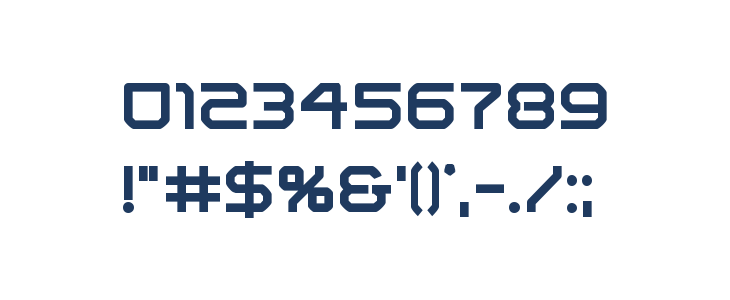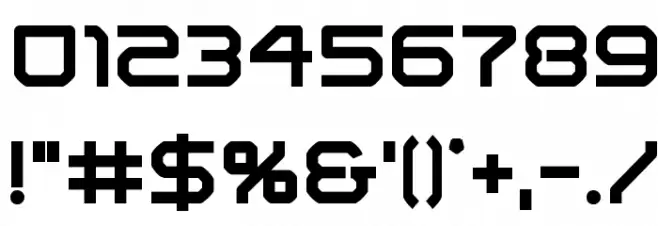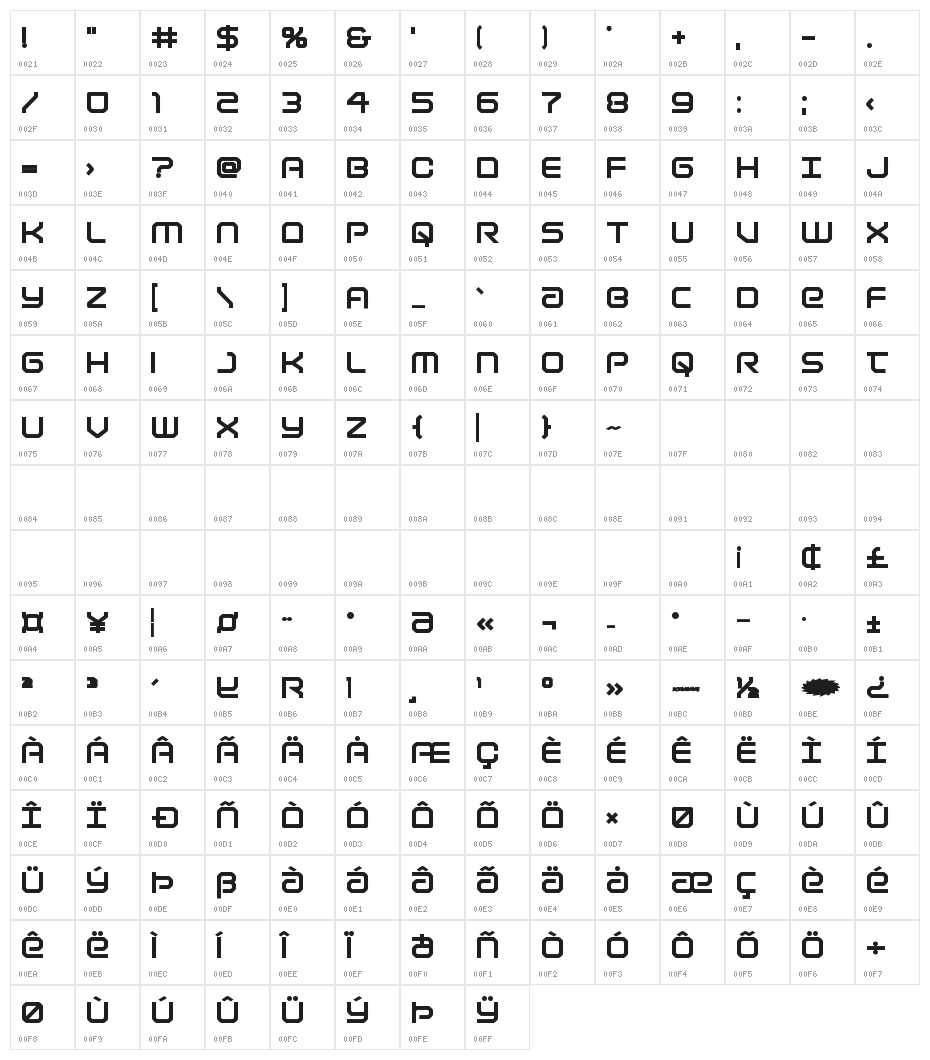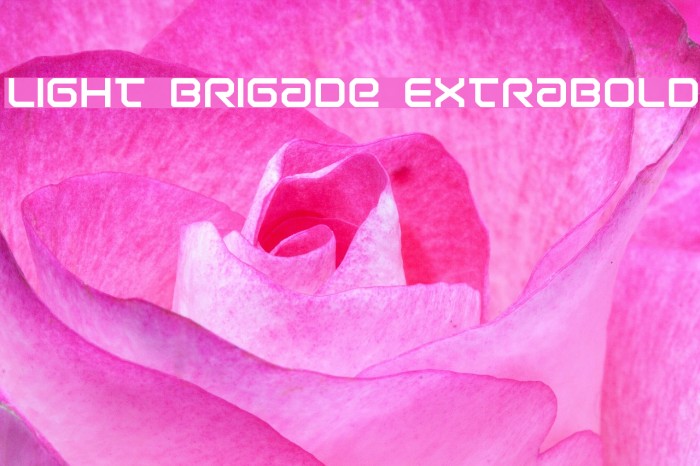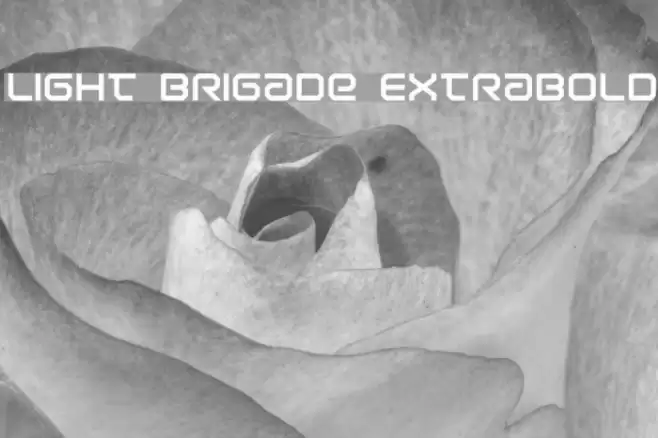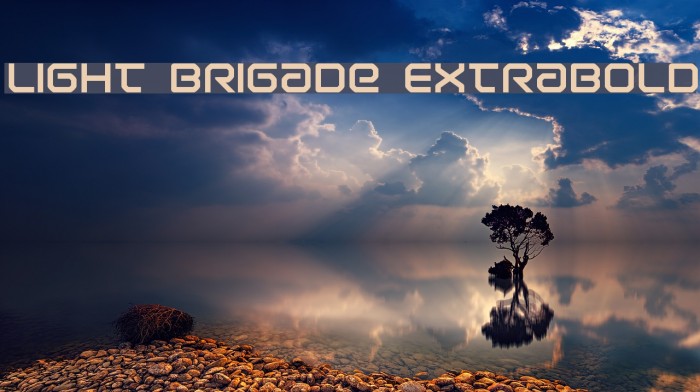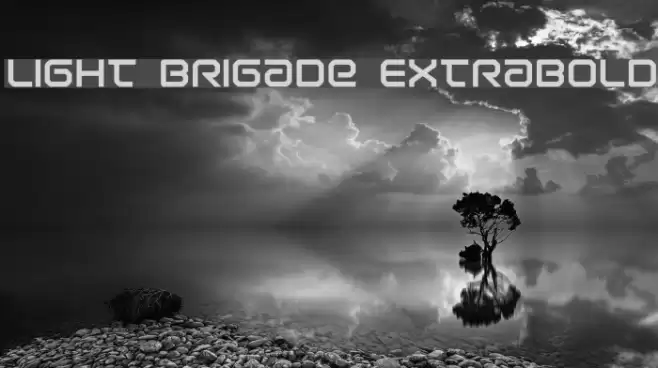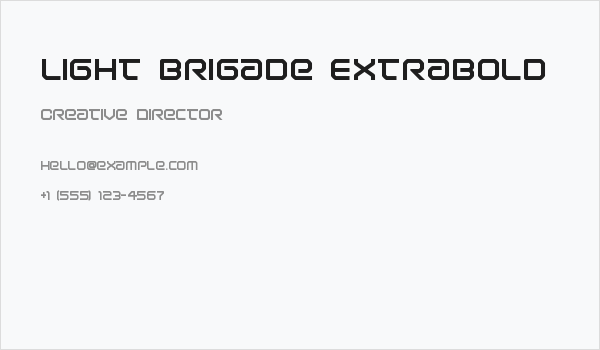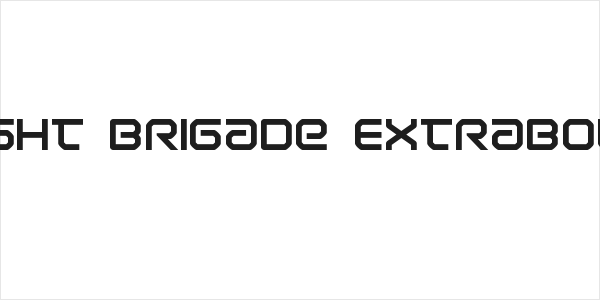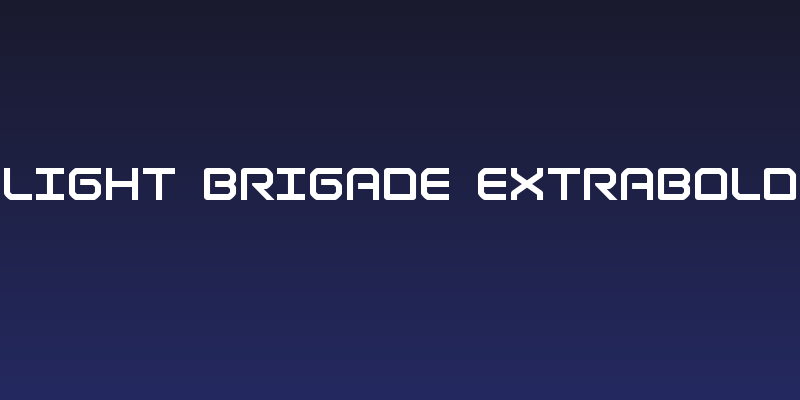
Light Brigade ExtraBold Font
Light Brigade ExtraBold Description
This font features a bold and geometric design, characterized by its strong, angular lines and modern aesthetic. The uppercase and lowercase letters maintain a consistent height, creating a uniform appearance. The numerals and special characters follow the same geometric style, enhancing the overall cohesiveness. The font's structure is clean and precise, with a futuristic feel that is both striking and versatile. Its boldness makes it stand out, while the geometric shapes lend a sense of order and clarity.